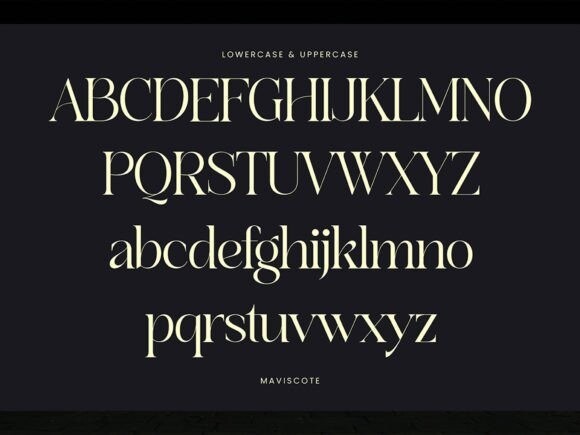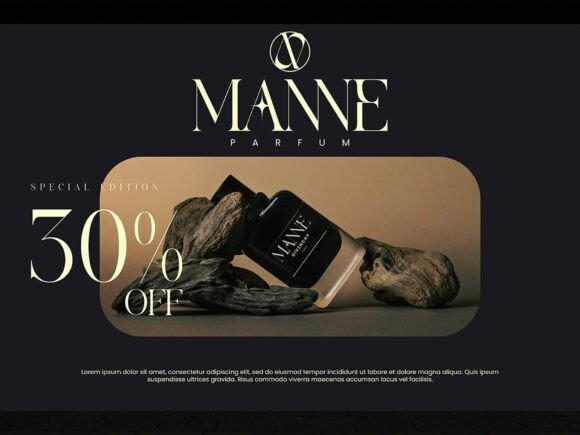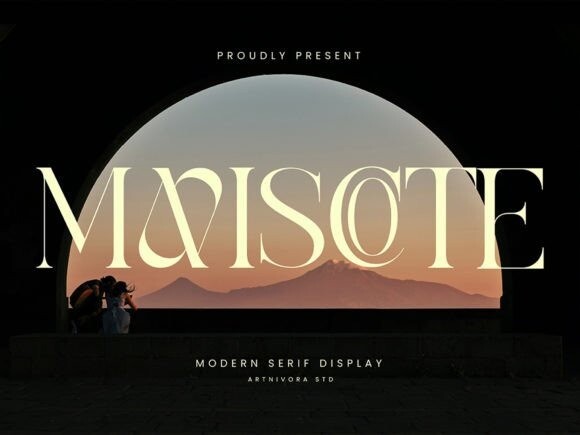
Maviscote Font
Maviscote Font is a trendy serif font with a modern twist. Its clean lines and stylish details bring a contemporary vibe to your projects. Perfect for a fresh and sophisticated look in your designs, Maviscote adds a touch of modern elegance to any text. Upgrade your typography game with this sleek and straightforward modern serif font.